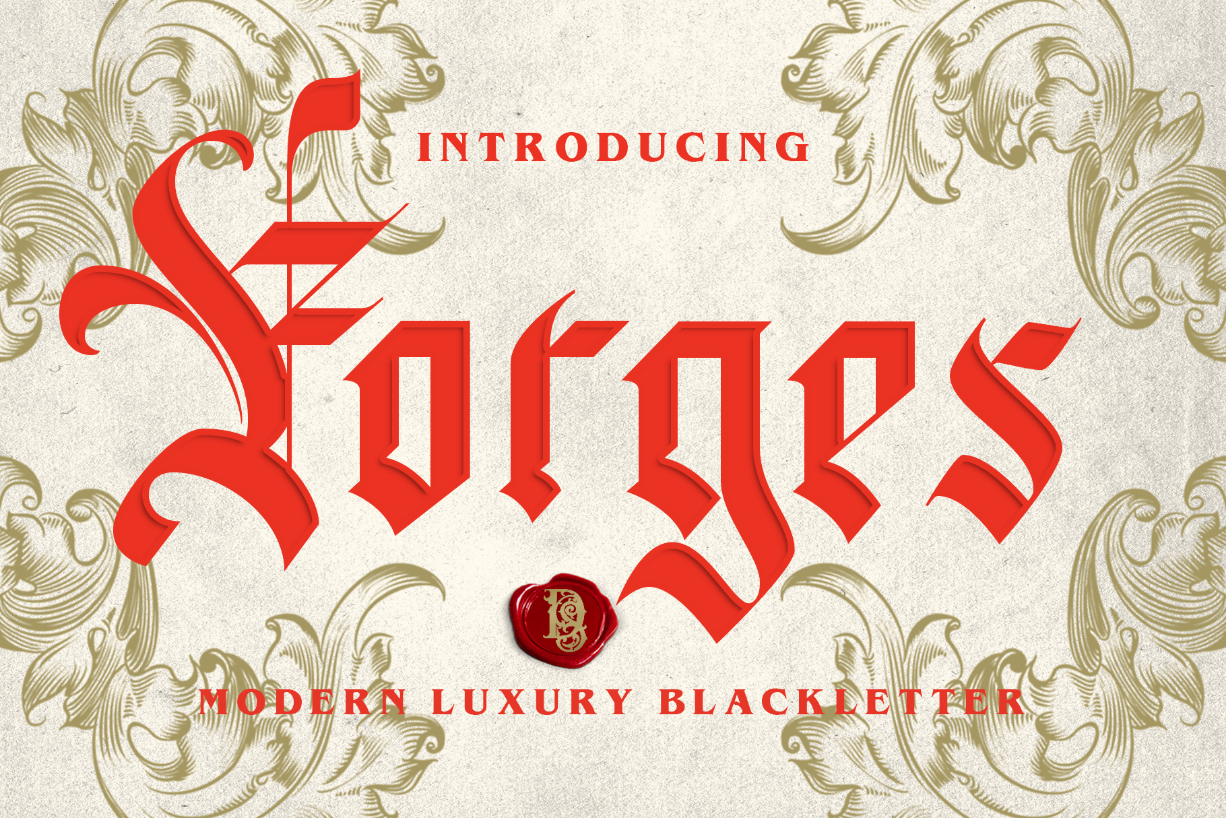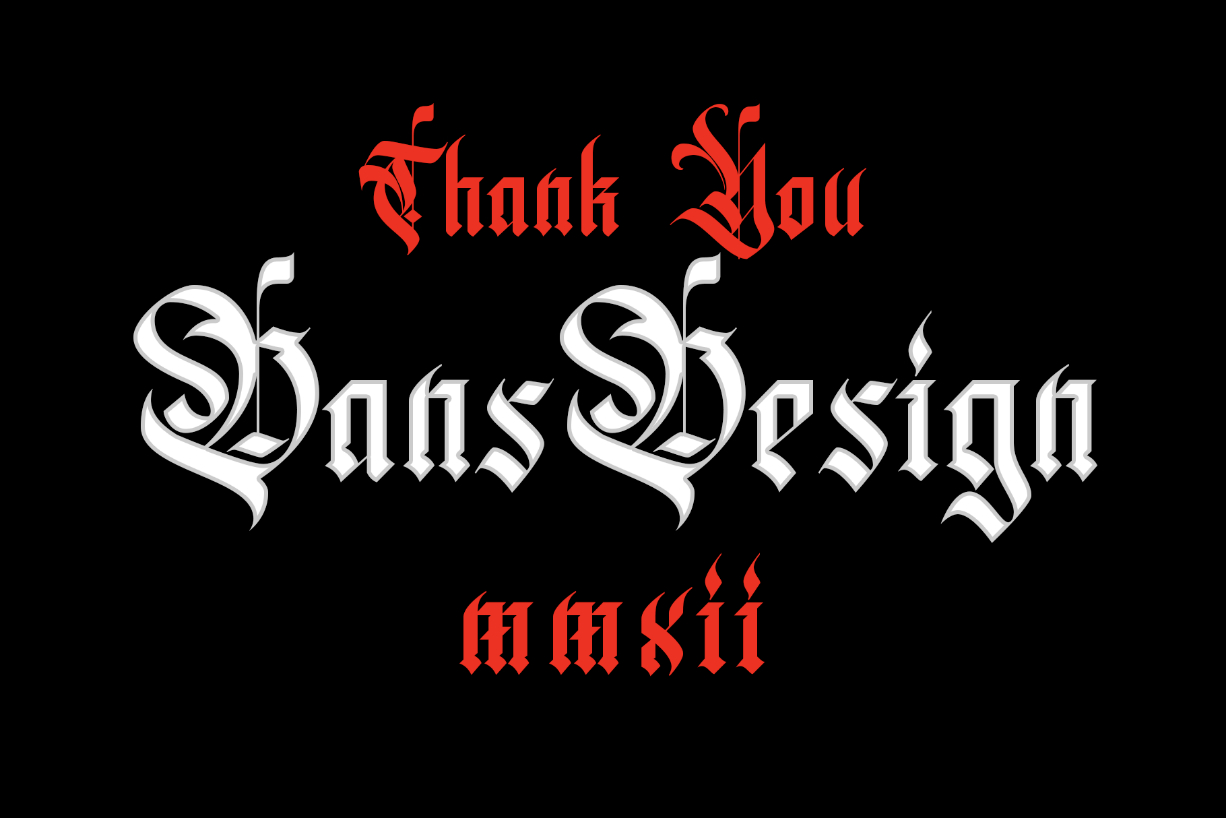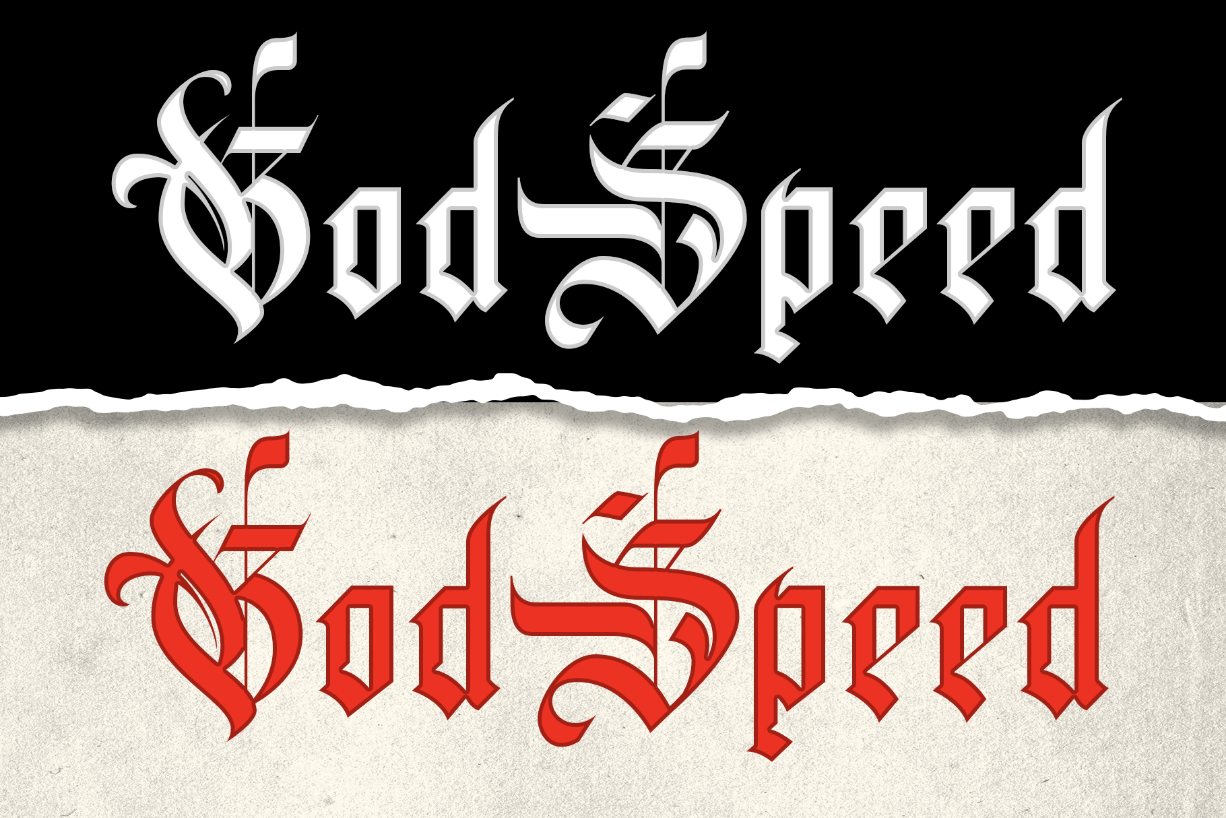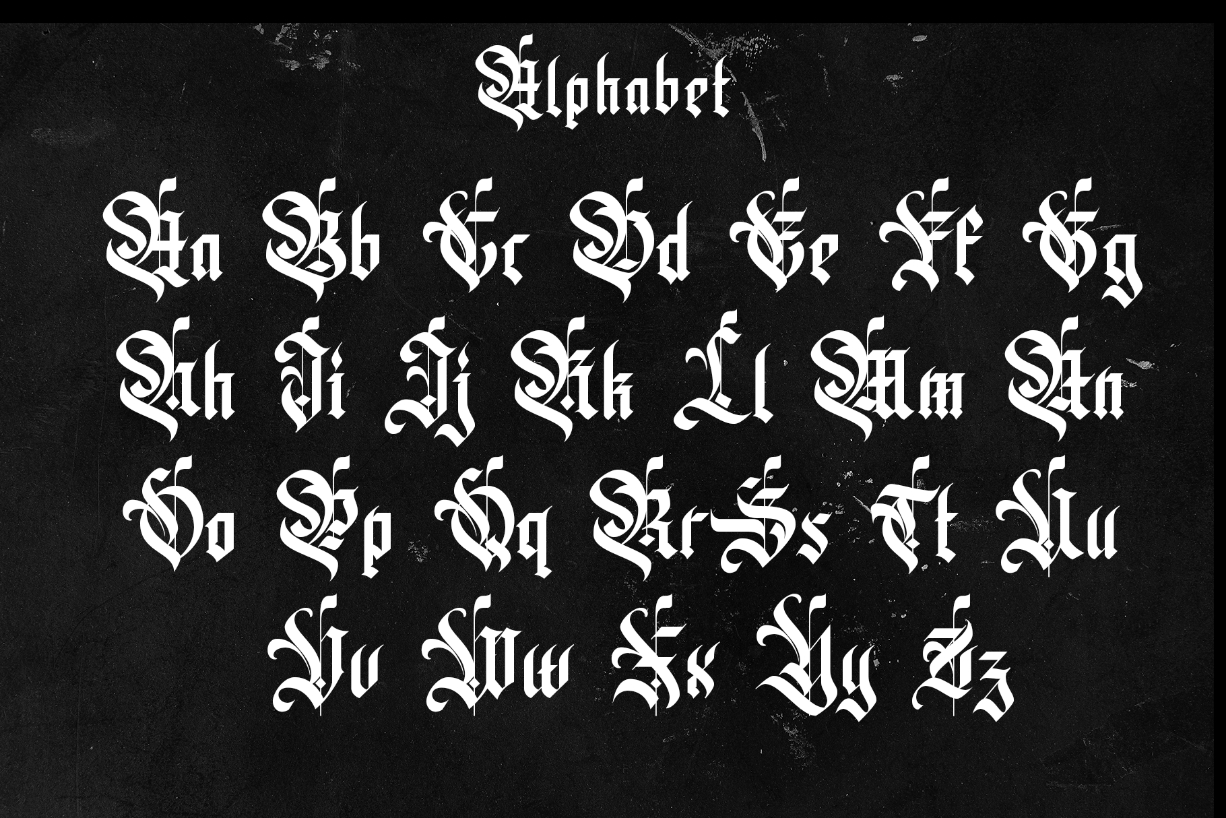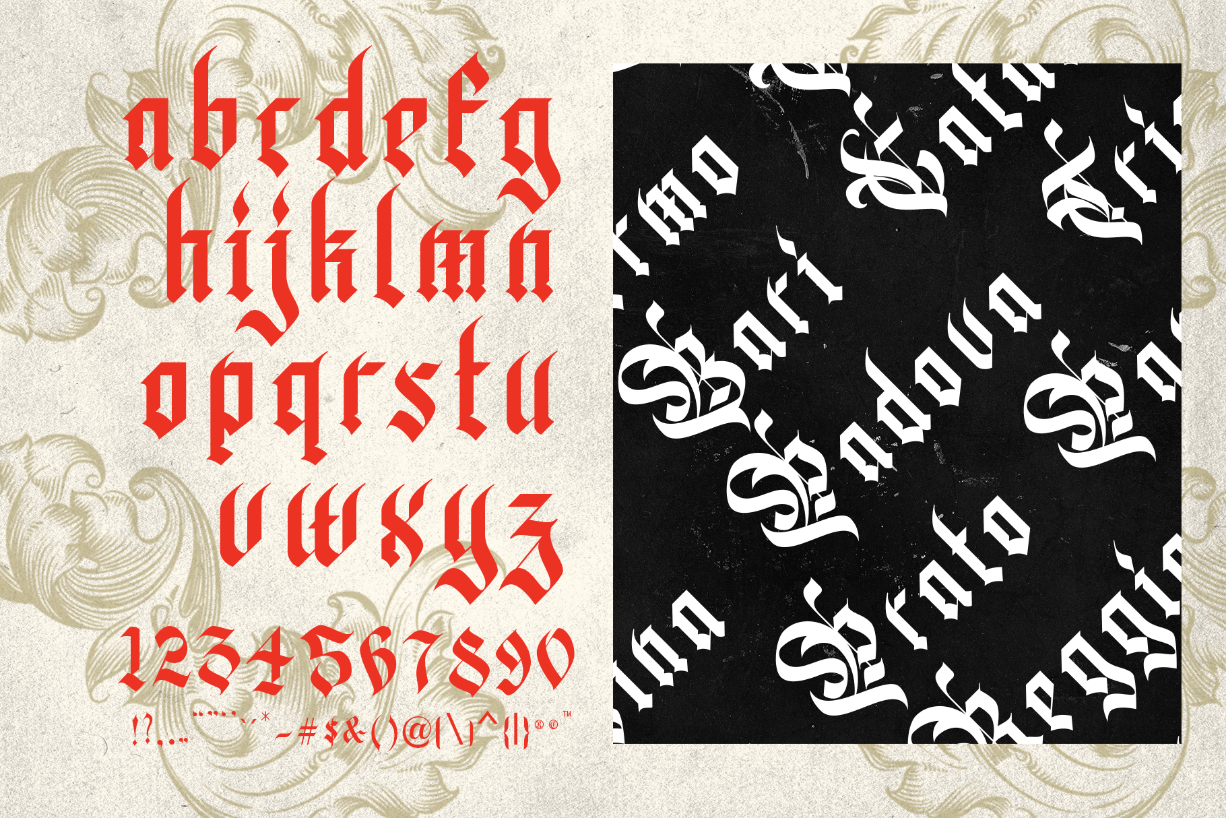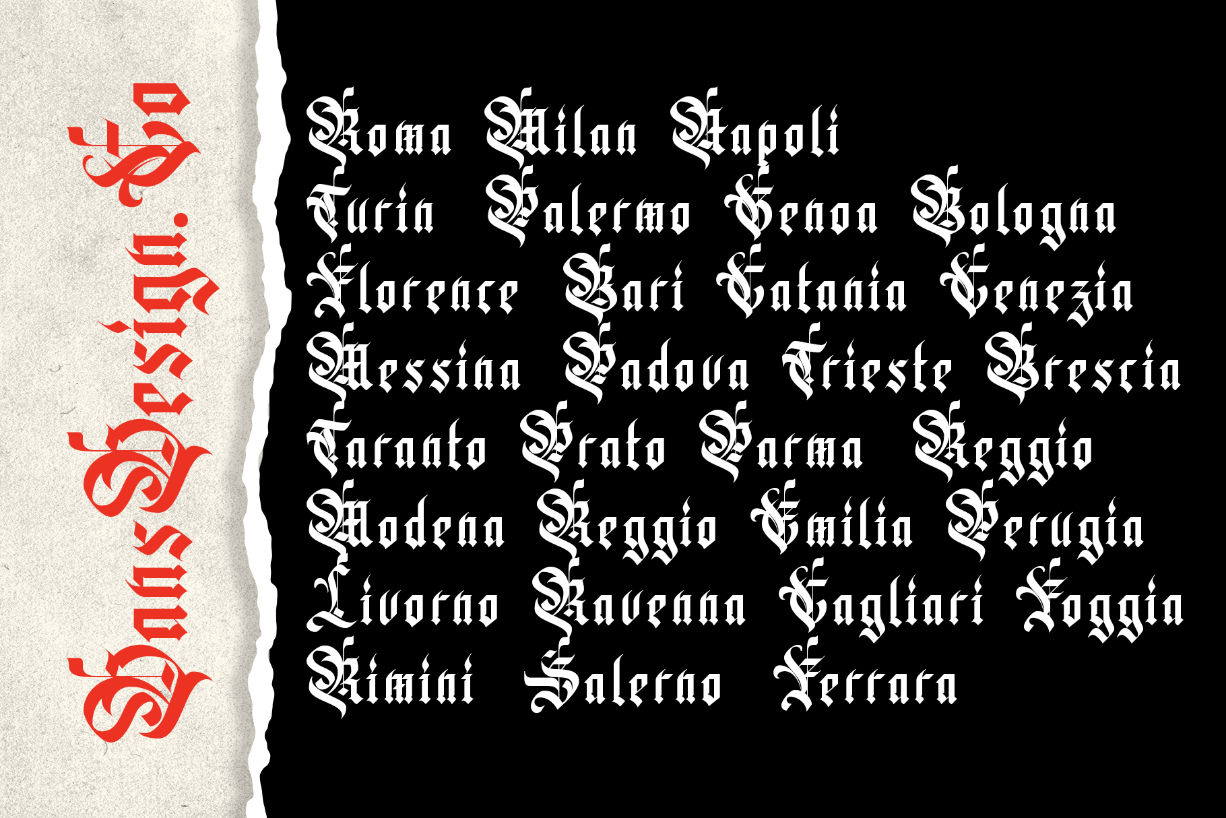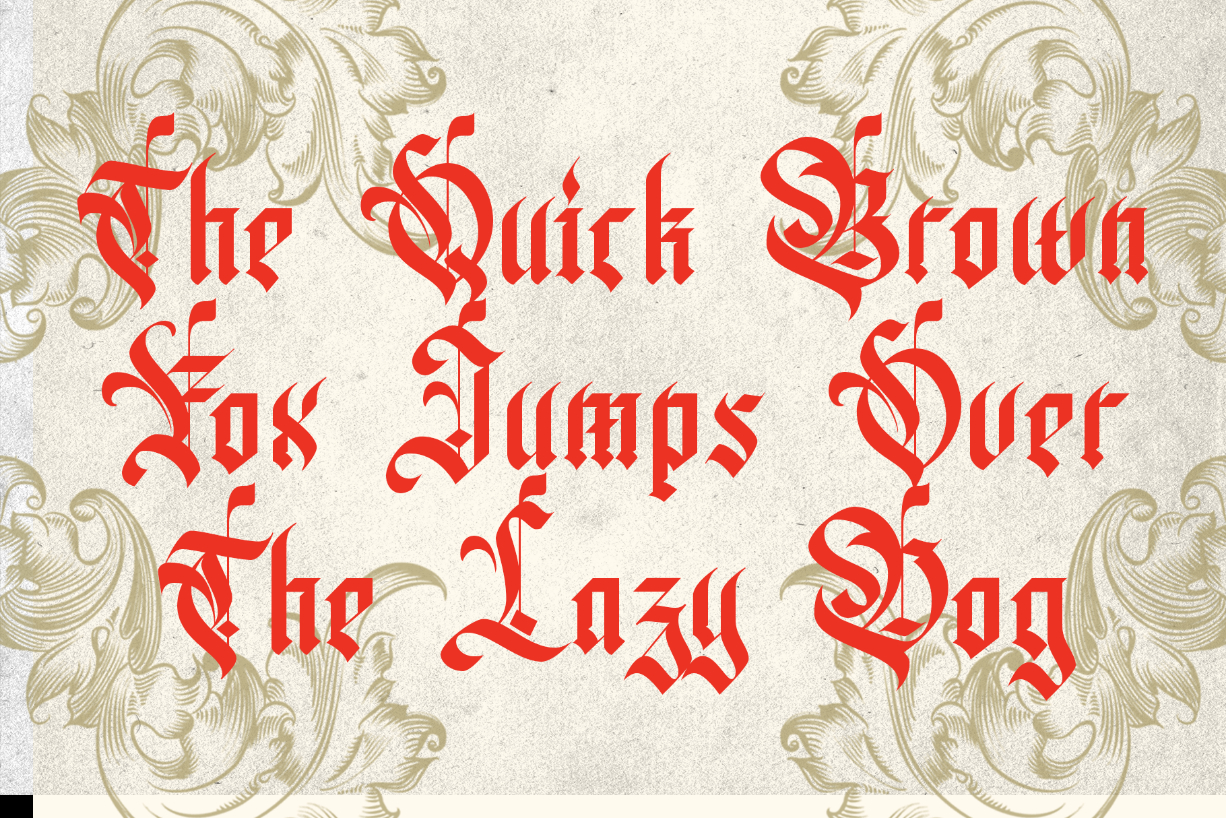
About Forges Font
Forges is a modern and highly detailed blackletter font. This font is imposing and features uniquely shaped letters, and as a result, it will easily match a wide range of creations that require a distinct touch.